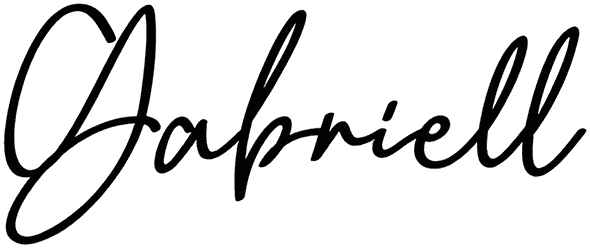
Gabriell Font
Gabriell is a cursive script font that would be your first option in the field of designing high-end editorial projects, such as applications, gift cards, stickers, billboards, or the user interface of the applications.
Even the first time you include this handwritten font in your graphic content, you can easily understand how it makes them look much more appealing to the audience. Aside from all of its numerous advantages, it carries a sense of delicacy, professionalism, softness, or momentum.